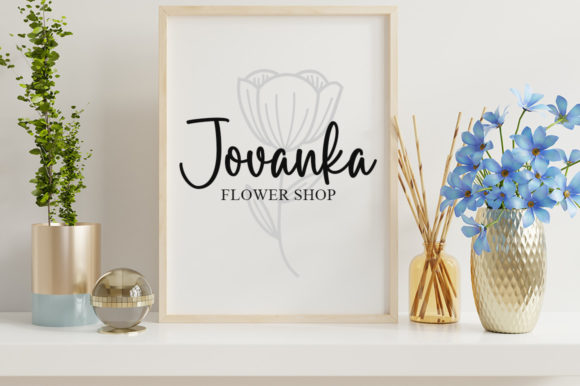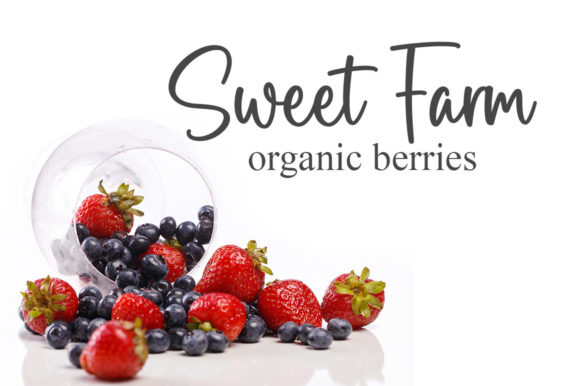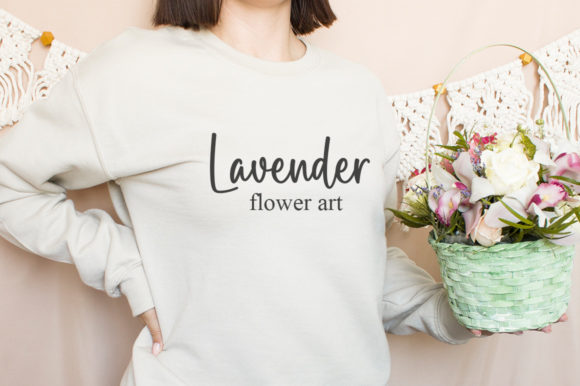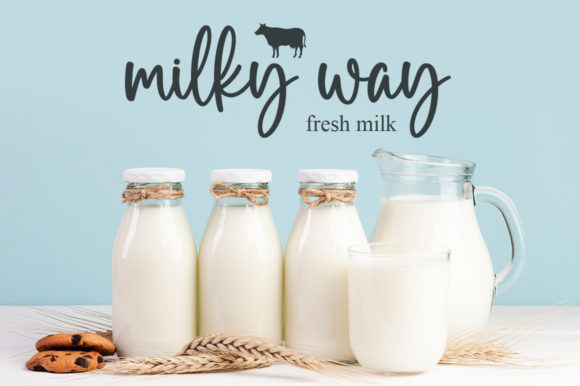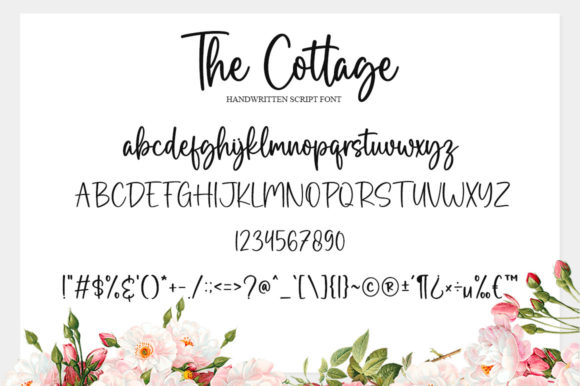
Introducing The Cottage, a delicate, elegant, and gracefully flowing handwritten font. This font boasts beautiful and well-balanced characters, making it a versatile choice that seamlessly complements a wide variety of designs.
The Cottage’s delicate charm adds an extra layer of sophistication to any project it graces. Its flowing script imparts a sense of ease and grace, making it an ideal option for conveying elegance across a diverse range of design applications.
The well-balanced characters of The Cottage contribute to its overall aesthetic appeal, ensuring a harmonious and visually pleasing composition. This quality makes it well-suited for a wide array of design projects, allowing it to adapt effortlessly to different themes and styles.
Whether you’re creating invitations, branding materials, editorial content, or any other design where an elegant and flowing script is desired, The Cottage proves to be a reliable and stylish choice. Its versatility allows it to enhance the visual appeal of diverse mediums, creating a seamless integration into your creative endeavors.
In essence, The Cottage is not just a font; it’s an embodiment of delicate elegance and flowing grace. As you explore its potential, you’ll find it to be a valuable asset in your toolkit for projects that demand a touch of sophistication and a timeless, handwritten charm.